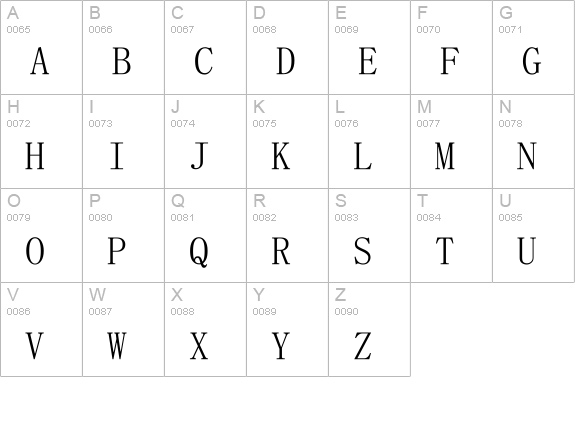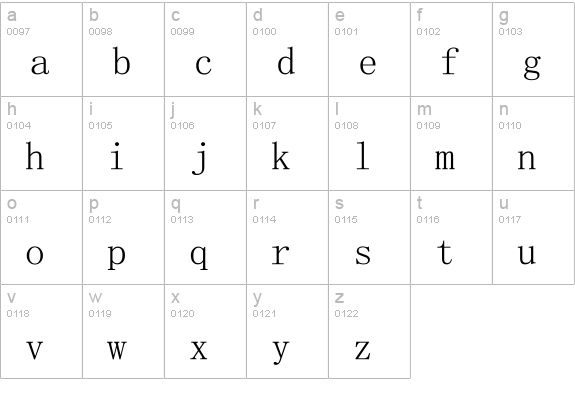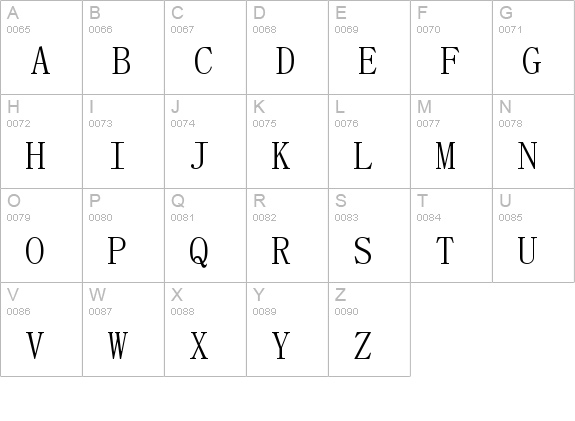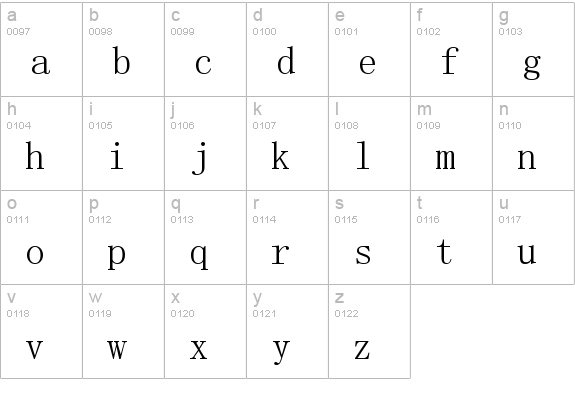
SimSun-ExtB is a versatile and elegant font that is perfect for a wide range of design projects. This font is known for its clarity and readability, making it an excellent choice for both print and digital media. With its extensive character set, SimSun-ExtB is capable of displaying a variety of languages, including Chinese, Japanese, and Korean. One of the standout features of SimSun-ExtB is that it is free to download. This means that anyone can access and use this font without any restrictions. Whether you are a professional designer or a hobbyist, this font is a great addition to your collection. To download SimSun-ExtB for free, simply visit FontsMarket.com. This website offers a wide selection of fonts, and SimSun-ExtB is just one of the many options available. With its easy-to-use interface, FontsMarket.com allows you to quickly and conveniently download and install this font onto your computer. Whether you are working on a website, a poster, or a logo, SimSun-ExtB will add a touch of sophistication and elegance to your designs. Its clean lines and crisp edges make it a visually appealing choice, while its wide range of characters ensures that you can express yourself in any language. With SimSun-ExtB, your designs will truly stand out from the crowd. So why wait? Take advantage of the opportunity to download SimSun-ExtB for free at FontsMarket.com and enhance your design projects with this exceptional font.